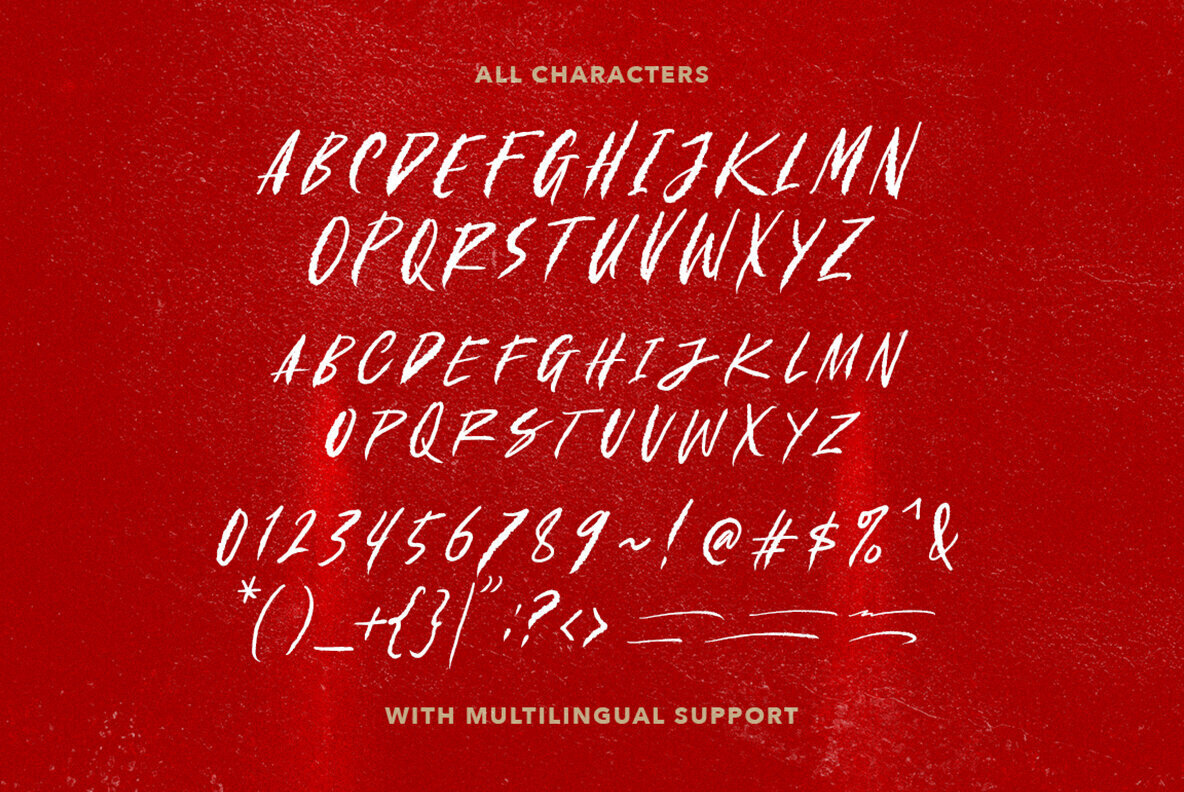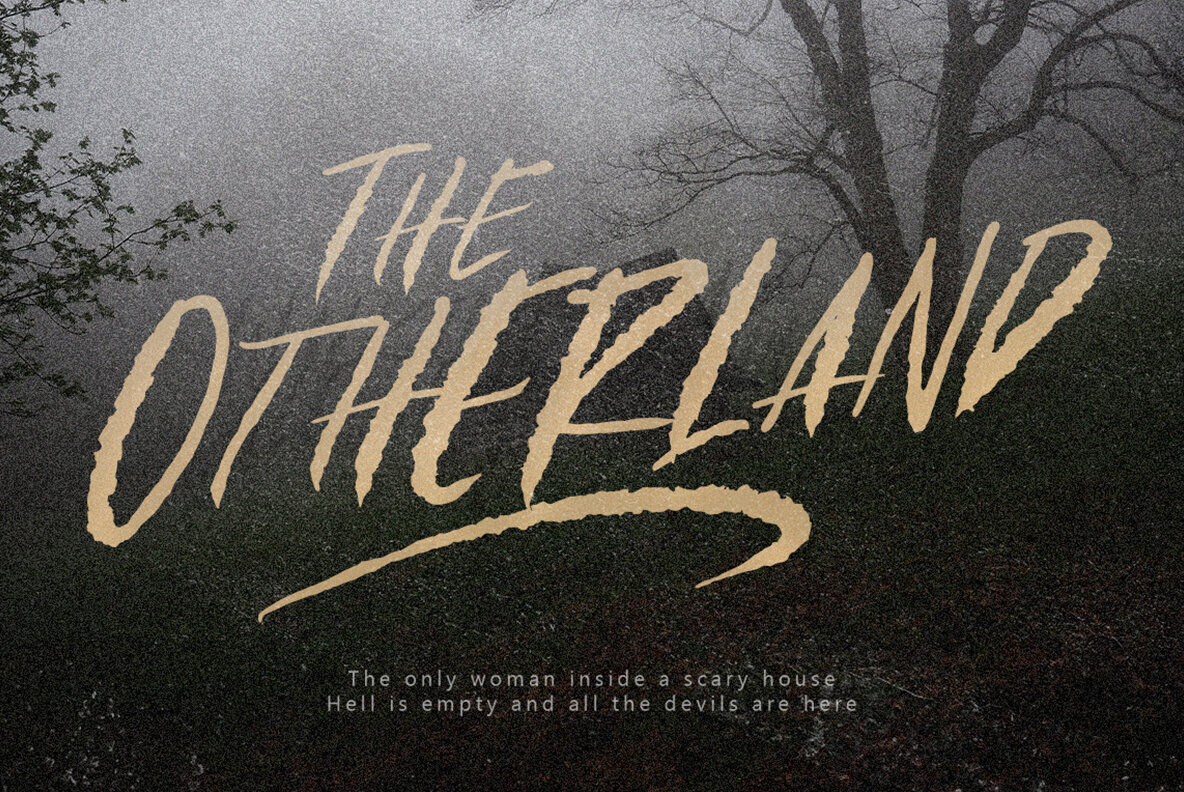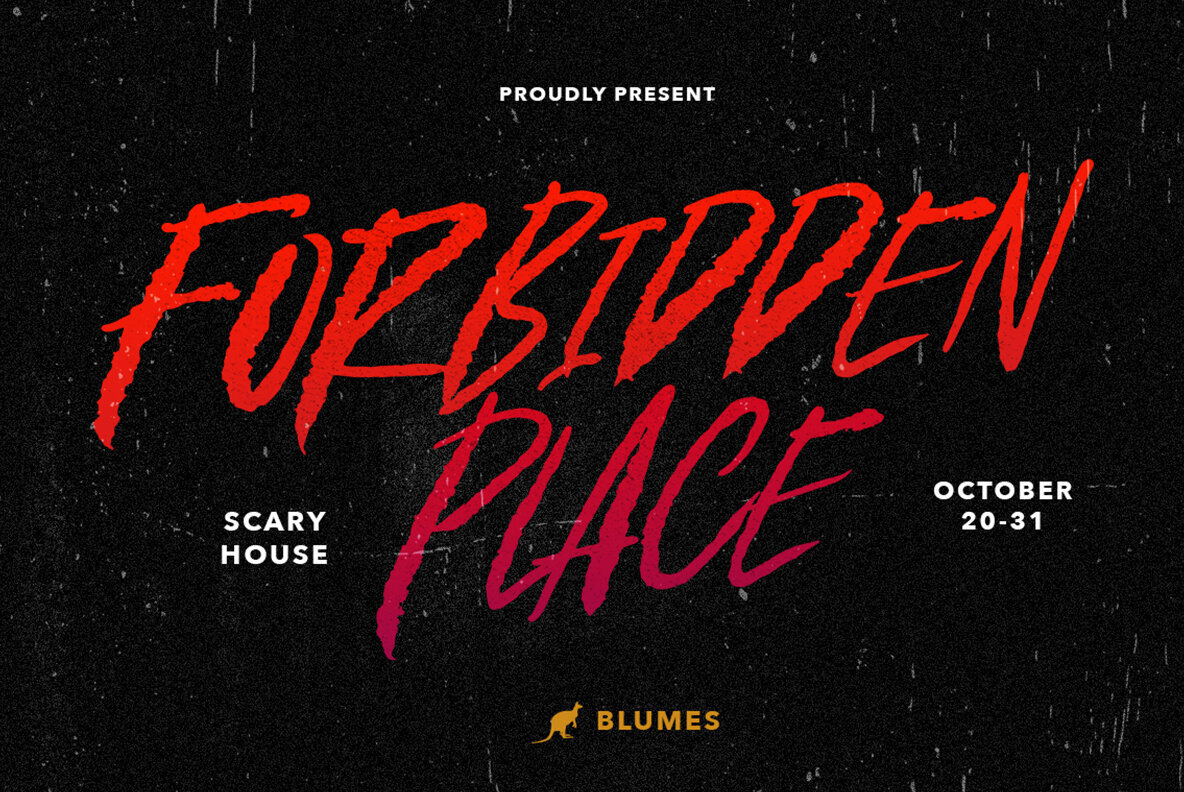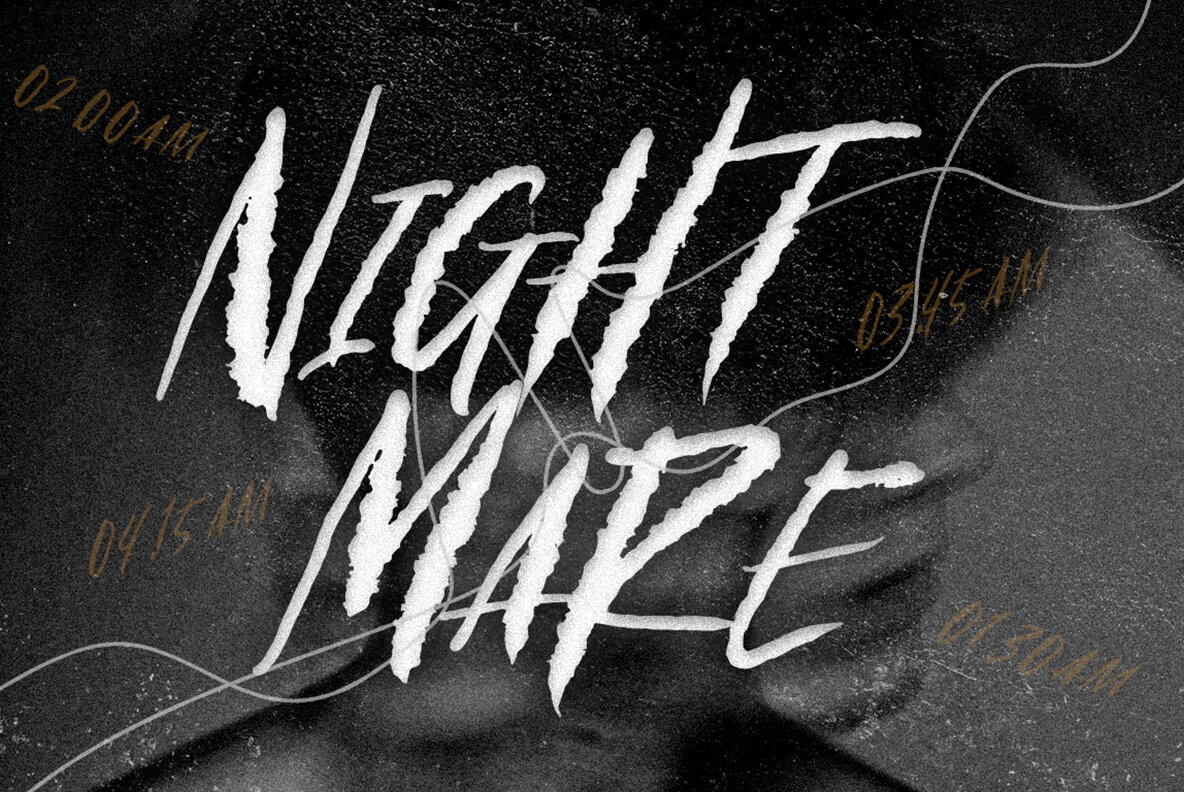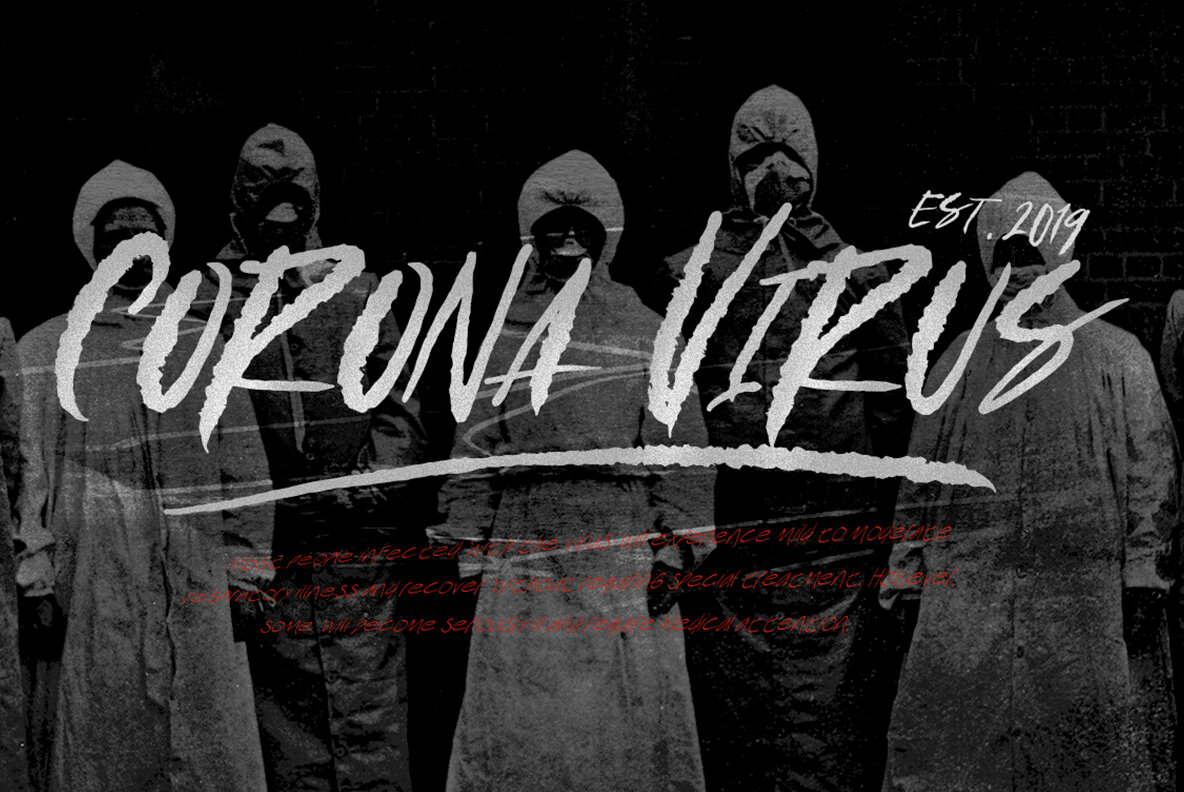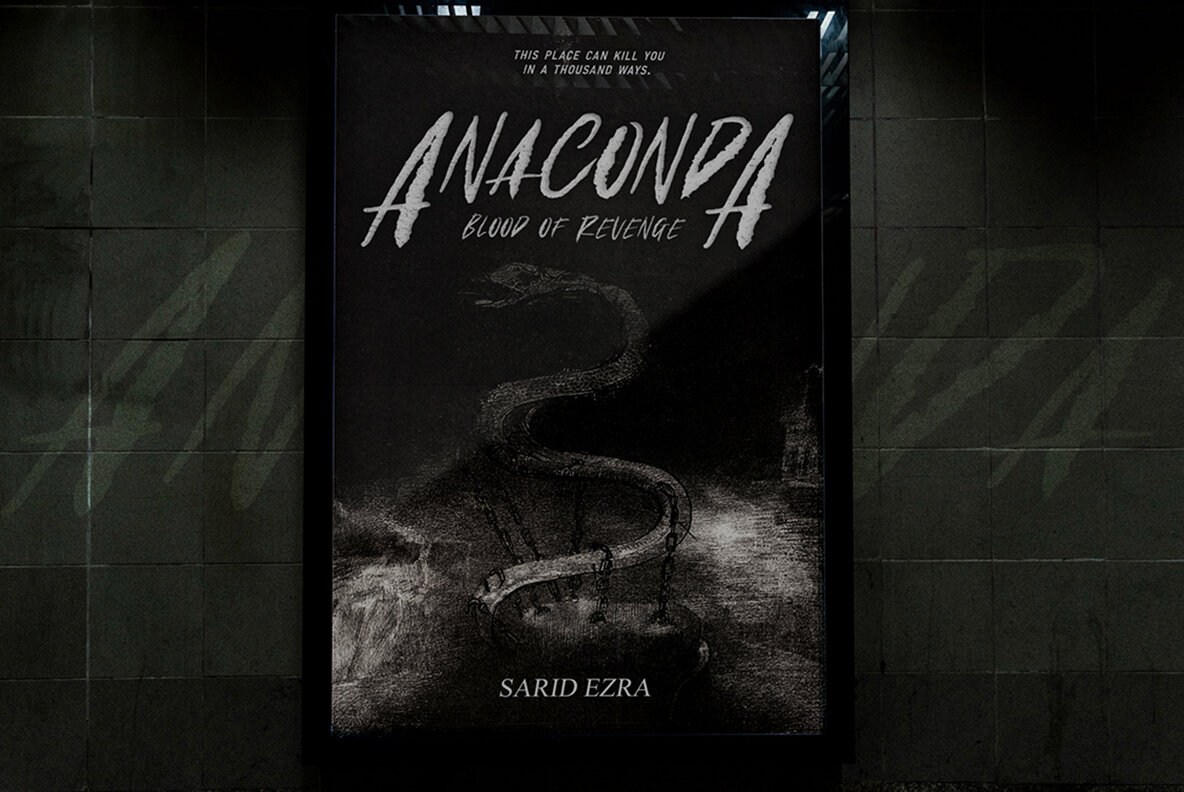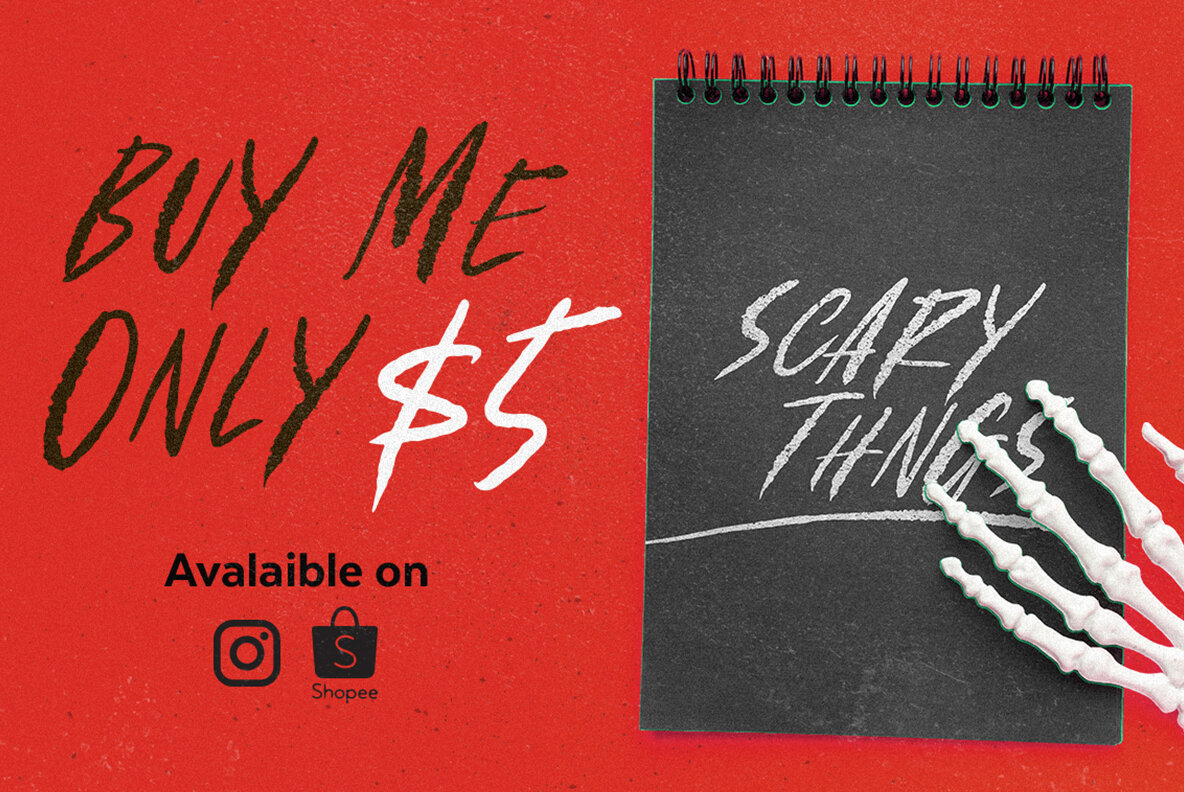
Under Terror Font
Under Terror
Unleash the eerie ambiance essential for Halloween with the Under Terror font, designed by Sarid Ezra. This rough, handwritten typeface is perfect for creating spooky posters and promotional materials. Its unique character mixing—where lowercase and uppercase letters can be blended—ensures a distinct aesthetic that captures the essence of horror.Under Terror: A Haunting Handwritten Font